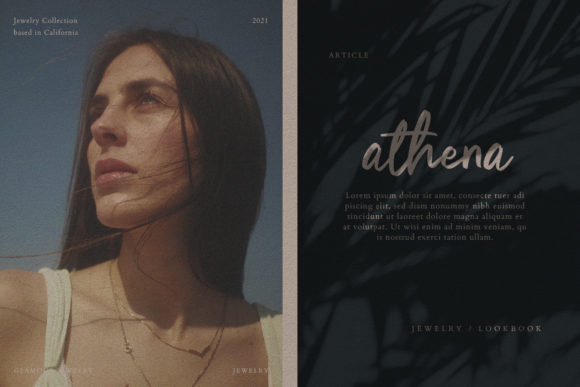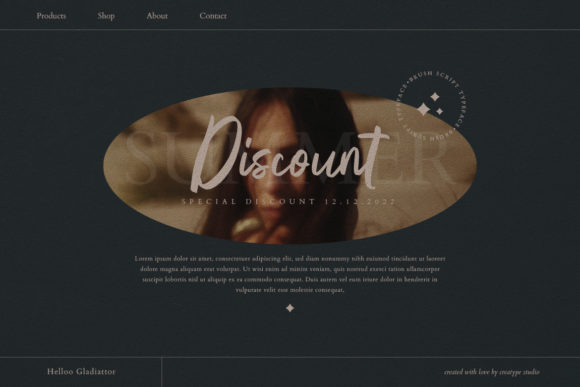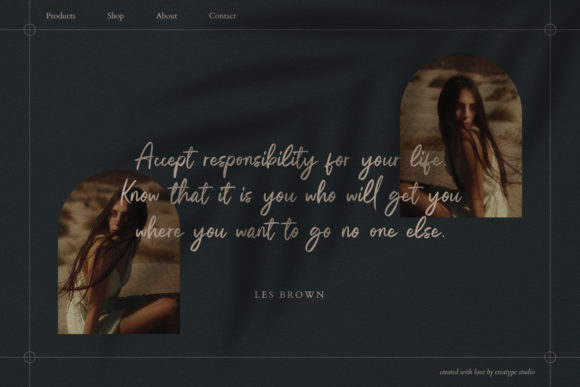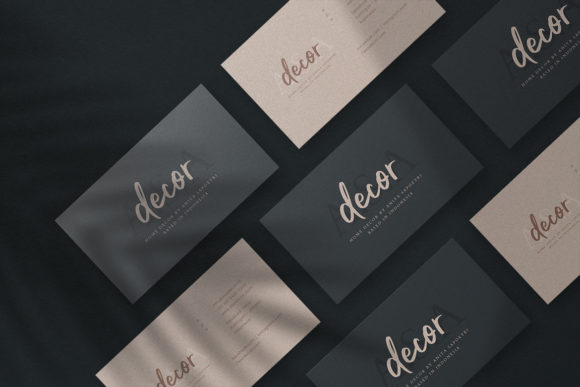
About Helloo Gladiattor Font
Helloo Gladiattor is a luxurious, brushed script font. This font is PUA encoded which means you can access all of the glyphs and swashes with ease!